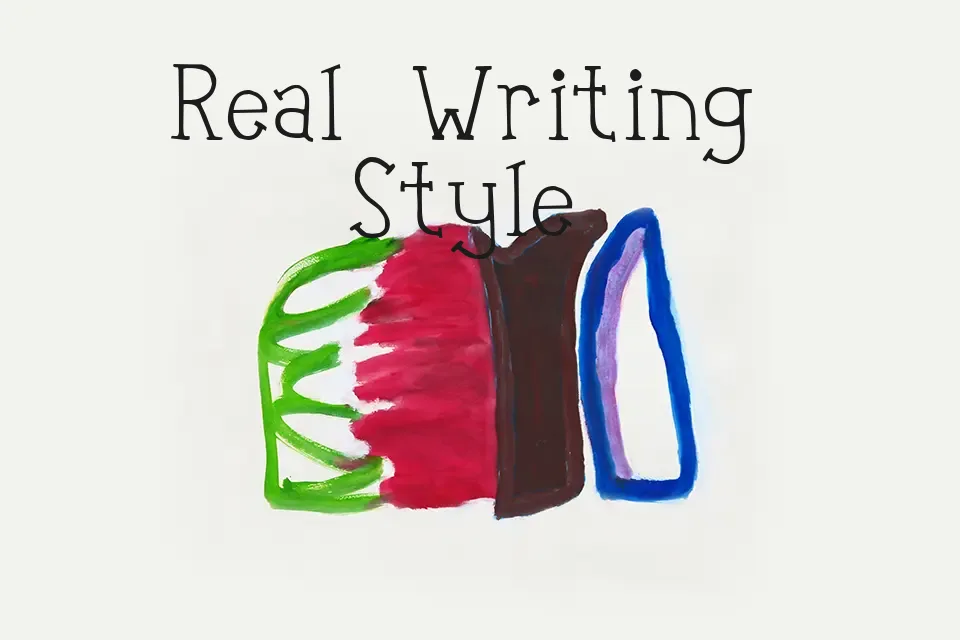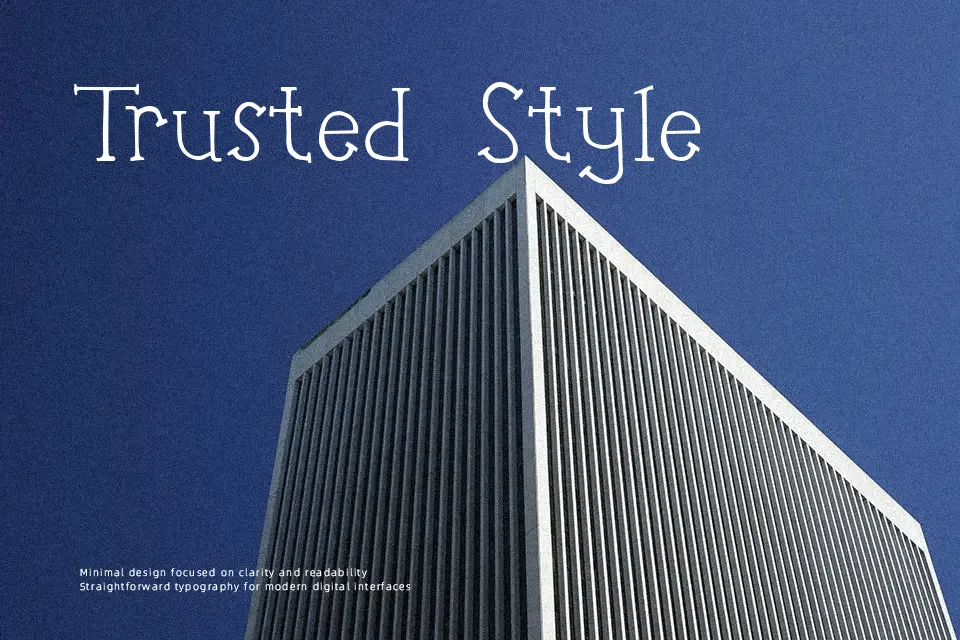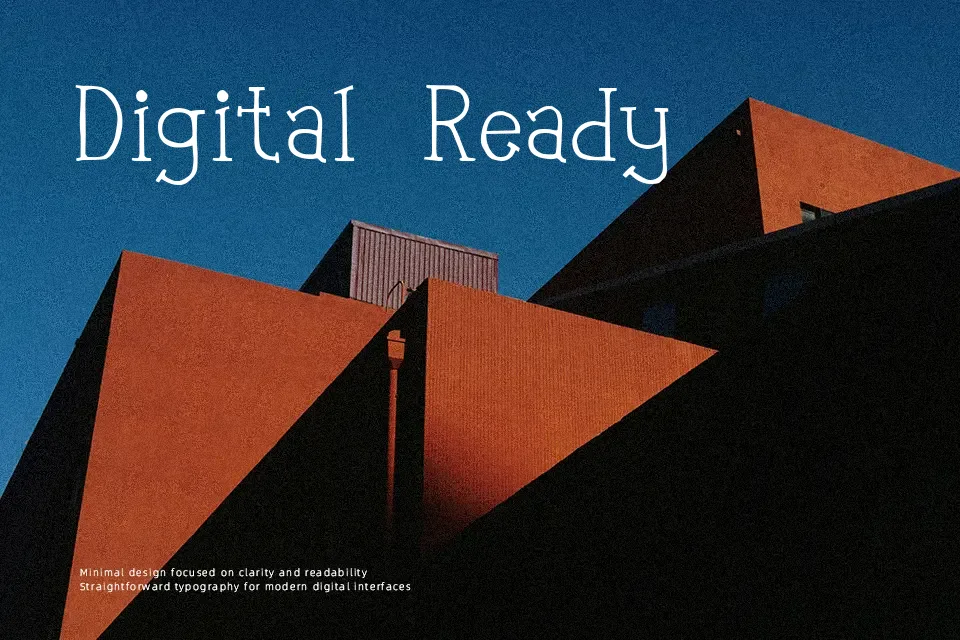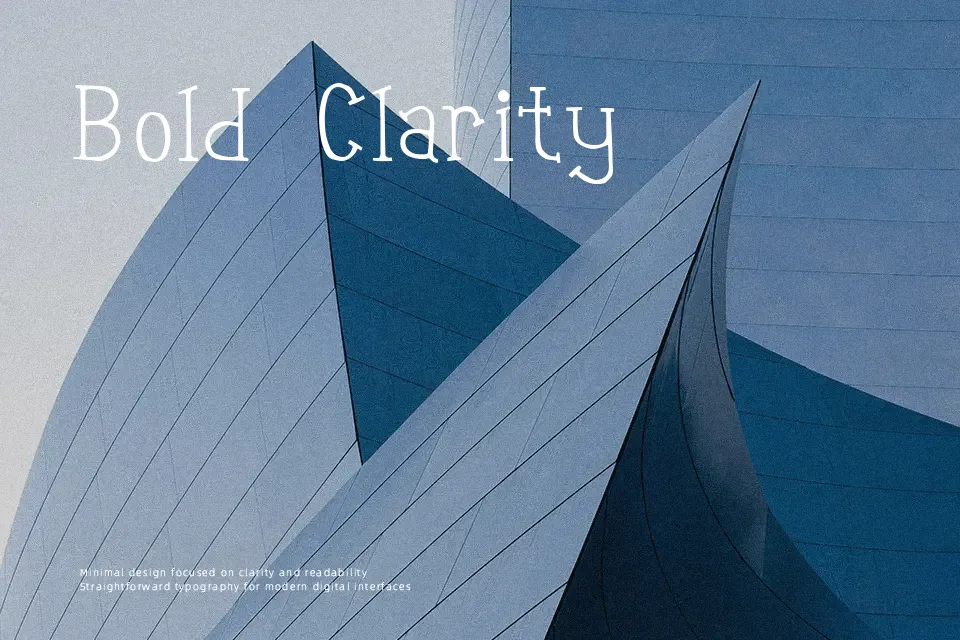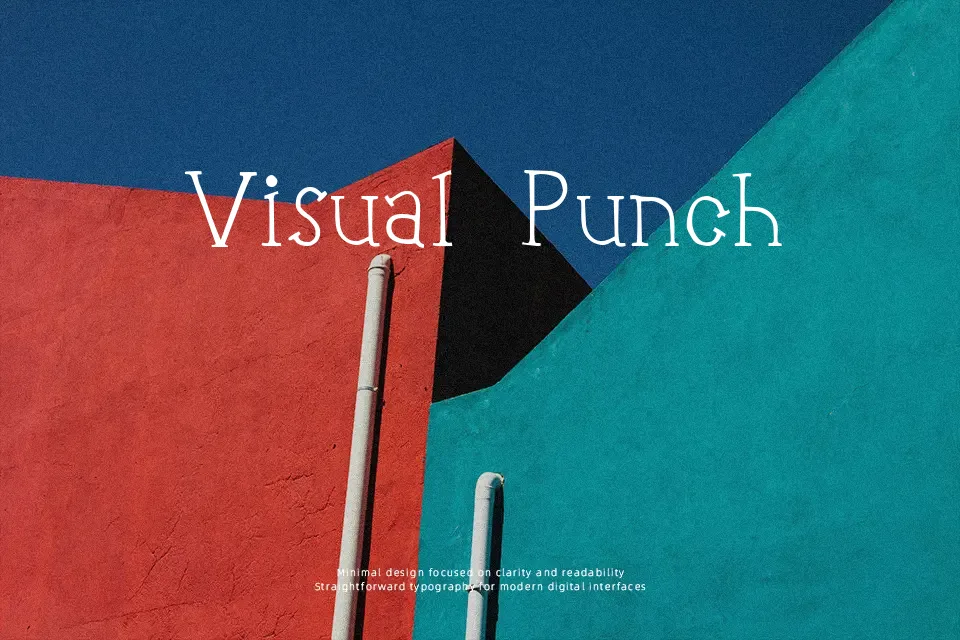
Robot Teacher Font
The structural rhythm of Robot Teacher Font brings a charming, child-like energy to display typography. Featuring slightly irregular stroke weights and softly rounded terminals, the letterforms establish a warm, approachable visual presence. The spacing is relatively open, allowing the quirky, block-like proportions to maintain clarity in short headlines. This design is an excellent choice for casual event posters, vibrant apparel graphics, and playful branding elements. However, the deliberate structural inconsistencies reduce readability at smaller point sizes. The varying character widths and bouncy baselines make it less effective for continuous reading, as the playful nature of the font distracts in dense paragraphs.
children’s book covers
playful event posters
quirky product packaging
retro gaming interfaces
Perfect for gaming, kids, and packaging, with a cute and cartoon style.